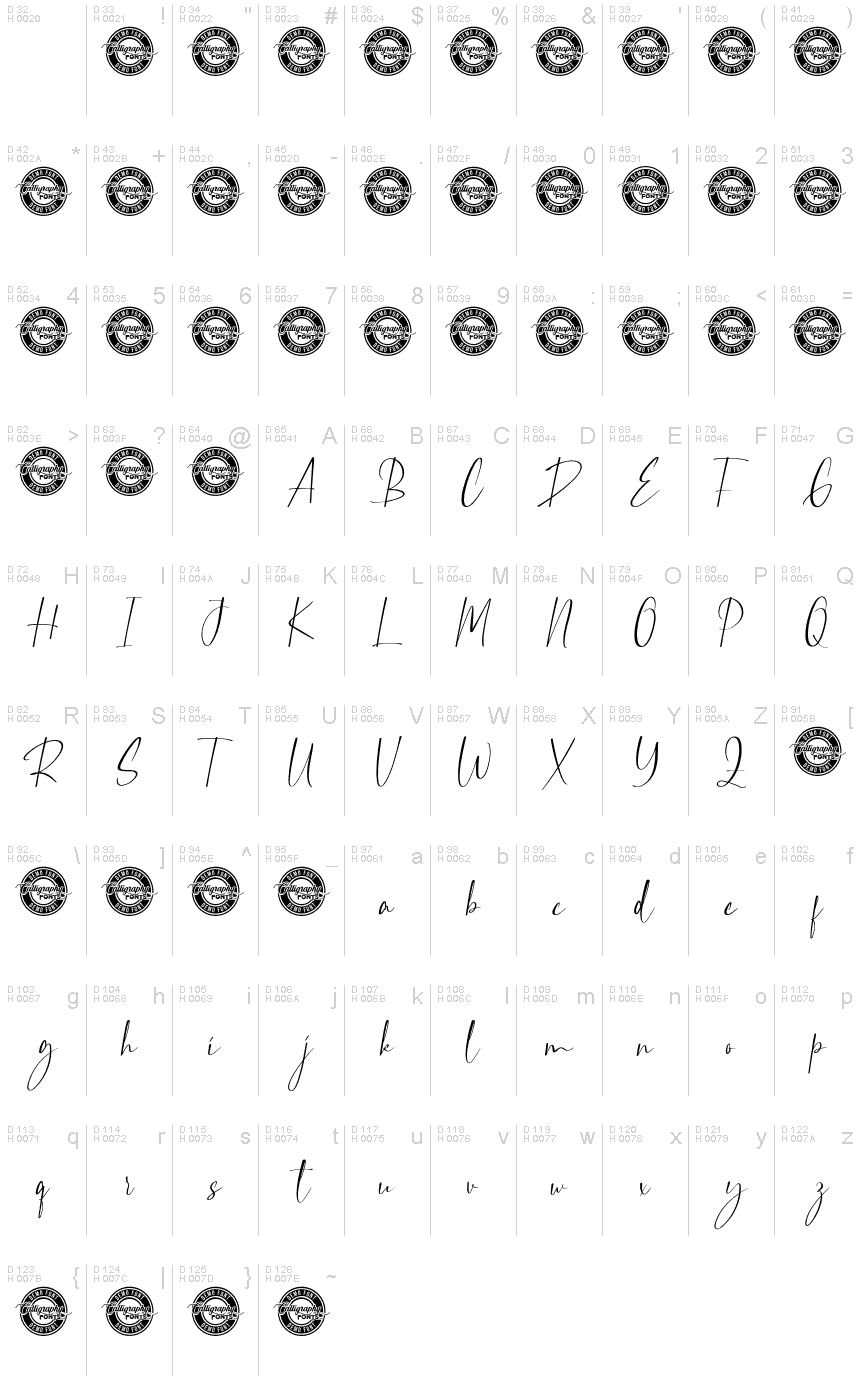
Magnesian Demo Script
Magnesian Script is the perfect font for adding a touch of elegance and personality to your projects. This handwritten signature-style font, designed by Widiyanti & Sarah SP, exudes a light and airy feel that's perfect for invitations, greeting cards, and wedding designs. The stylish curves and flowing lines bring an effortless charm to social media graphics and blog post titles. With Magnesian Script, you can add a human touch to any project that requires a personal touch without sacrificing readability. Make your designs stand out with this beautiful and versatile script font!